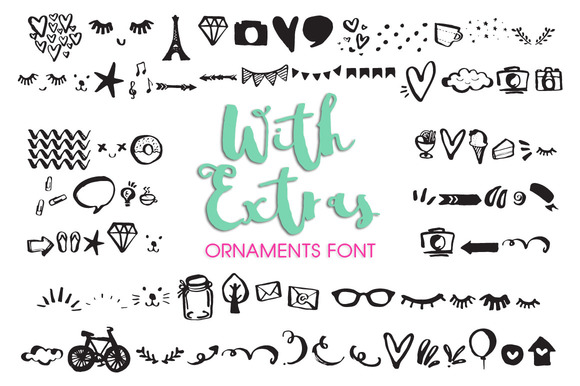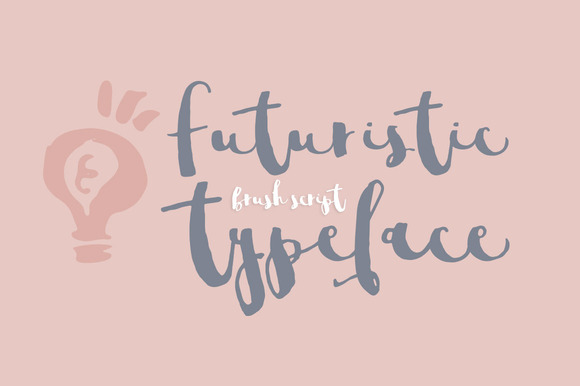
Say Gotcha Brush Font
Say Gotcha! Introducing New Trendy Brushy Font draw from Brush handwritten with Natural Line Style, Say Gotcha font with Extras. Ready to give our design, Modern and Stylish looks.
I draw brushy ornaments and additional love swashes letter to complete our modern brushy design. Combine between SayGotcha and SayGotchaAlt font (by Highlight the Text then Change the Font) to get very unique result. If you are OpenType Software user, You also can access alternative letters on